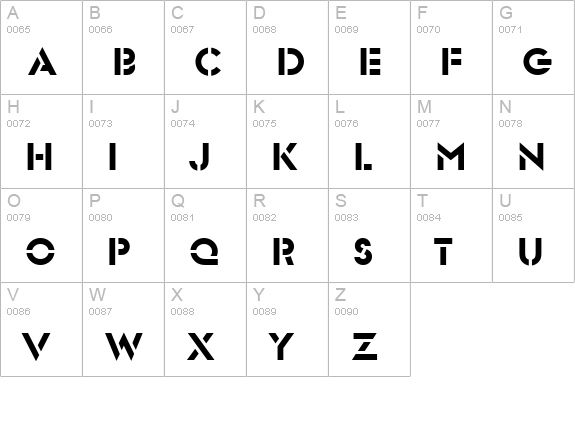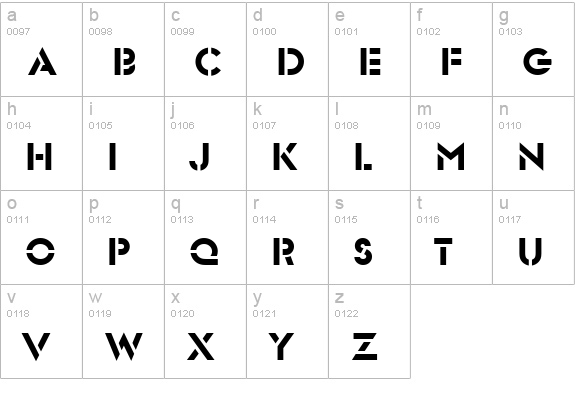
GlaserSteD Font Details
GlaserSteD is a modern and elegant font that exudes sophistication and style. Its clean lines and sharp edges give it a sleek and professional look, making it perfect for a wide range of design projects. Whether you're creating a logo, a website, or a print advertisement, GlaserSteD will make your text stand out with its unique blend of classic and contemporary design elements. Best of all, GlaserSteD is completely free to download at FontsMarket.com. This means that you can add this versatile font to your collection without any cost, giving you the freedom to use it in any personal or commercial project. Don't miss out on this fantastic opportunity to elevate your designs with the timeless beauty of GlaserSteD font. Download it today and see the difference it can make in your creative endeavors.